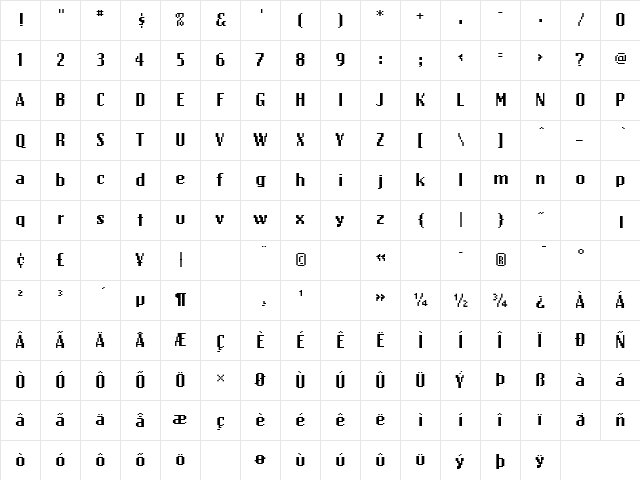
EmigreTen Regular
Design Context for EmigreTen Typeface
EmigreTen takes a measured approach to typography — its balanced proportions and neutral character make it a reliable workhorse for both digital and print work.